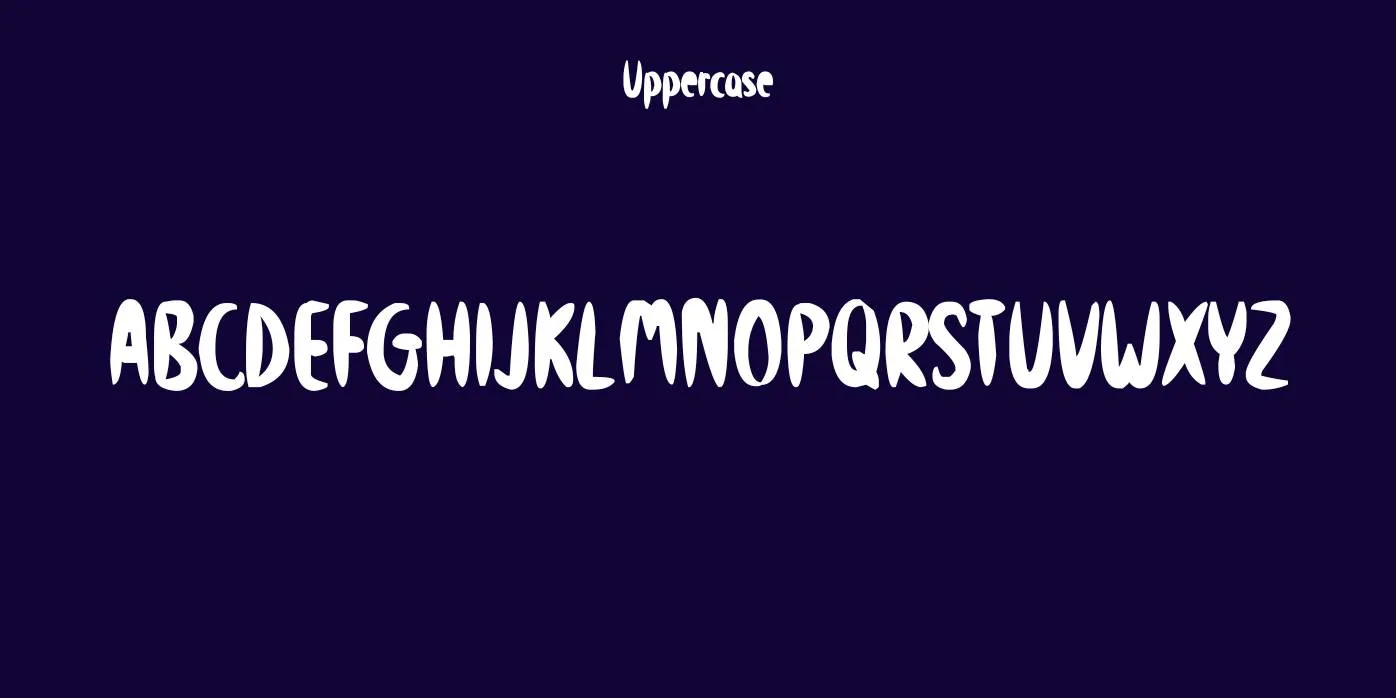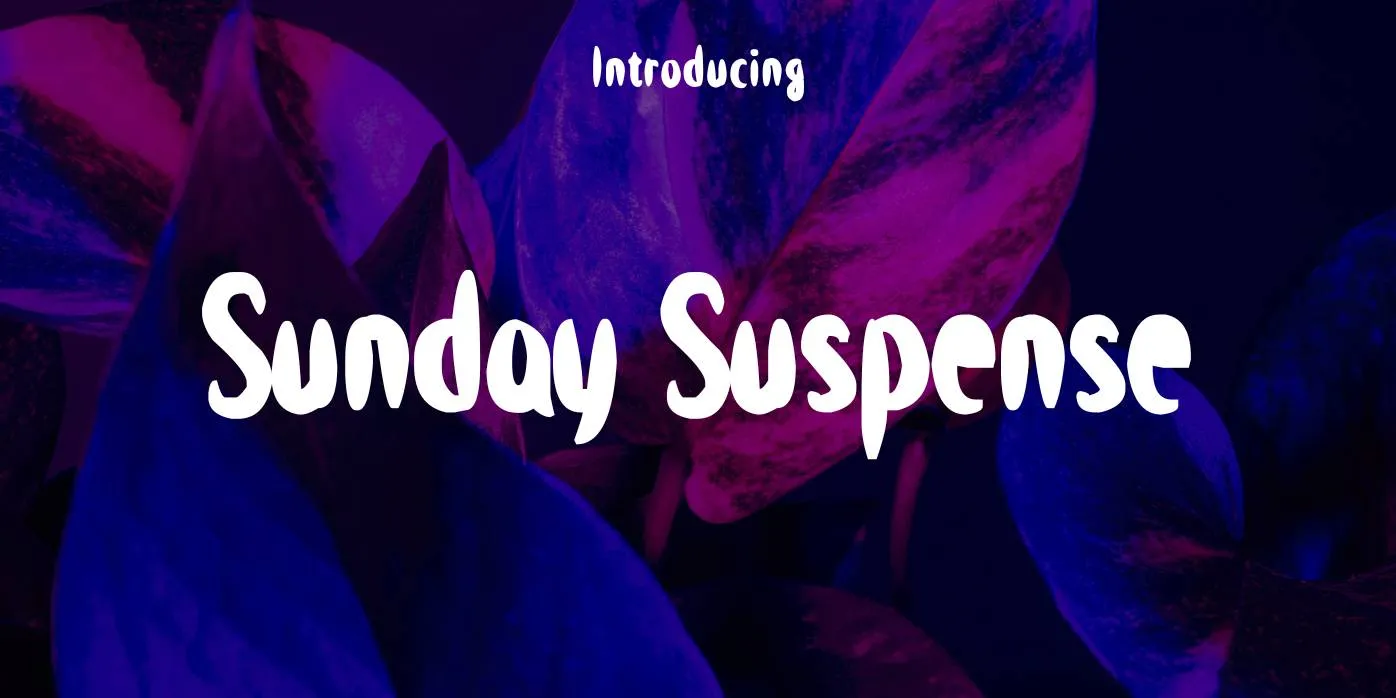
Sunday Suspense Font
Here we discuss detailed information about a stunning and classic font named Sunday Suspense Font. It can be used to make so many different projects with a very attractive look. This font contains 134 characters, 117 glyphs and, 1000 units per Em. Unicode supported 2.0 and BMP only.
Embedding rights are not allowed for the permanent installation of this font. A very modern font that was introduced by Insta Fonts Foundry. An online generator tool supports you can make or edit simple designs to stylish looks without downloading the font. It supports file format TTF (True Type Font) and OTF (Open Type Font) which you can use on many devices such as Windows, MAC, Android, and Linux. It is a funny cartoon display font and you can make amazing projects by using it.
This typeface can also be used for pairing with other fonts like baby chipmunks font to see more amazing results in your projects. Copy-paste function also be used easily with this font. Because of its look, this typeface is so much famous all over the world. Usage You can make different designs by using this font it has many features like capital letters, small letters, and punctuations.
Special characters and much more. It can be used to make neat and clean banners, posters, and flyers. For making wedding cards and other event greeting cards you can use them. For printing mugs and T-shirts, you can also use this font.
It is considered a good option for both types of print and digital media. To design playful cartoons, and animated movies and for designs book covers you can also use them. Both types of projects making personal and commercial can be made by using this font but for commercial use, you need to buy its license. This whole font family is famous for making Instagram posts, packing products, and branding.
You can make so many designs by using this font. Is Sunday Suspense Font having good readability? Yes, it can be even read properly from a distance so you can make amazing and stunning projects by using this font. Where can we utilize the Sunday Suspense Font?